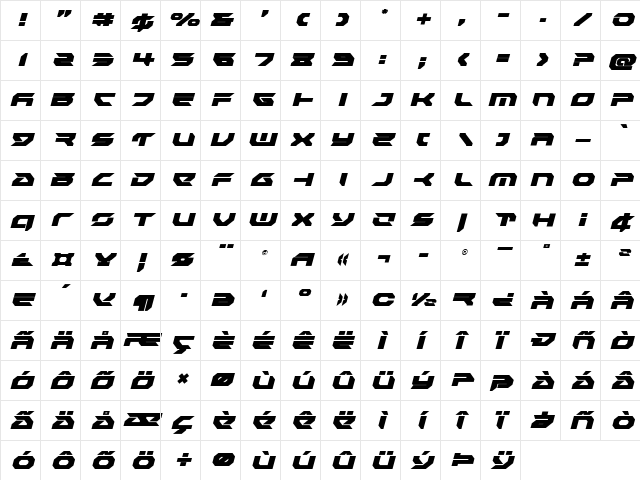
Royal Samurai Title Italic Italic
Design Context for Royal Samurai Title Italic Typeface
Royal Samurai Title Italic is a composed and adaptable typeface that performs quietly and consistently across a wide range of design contexts. The dynamic lean of this cut emphasises speed and emphasis in any layout.